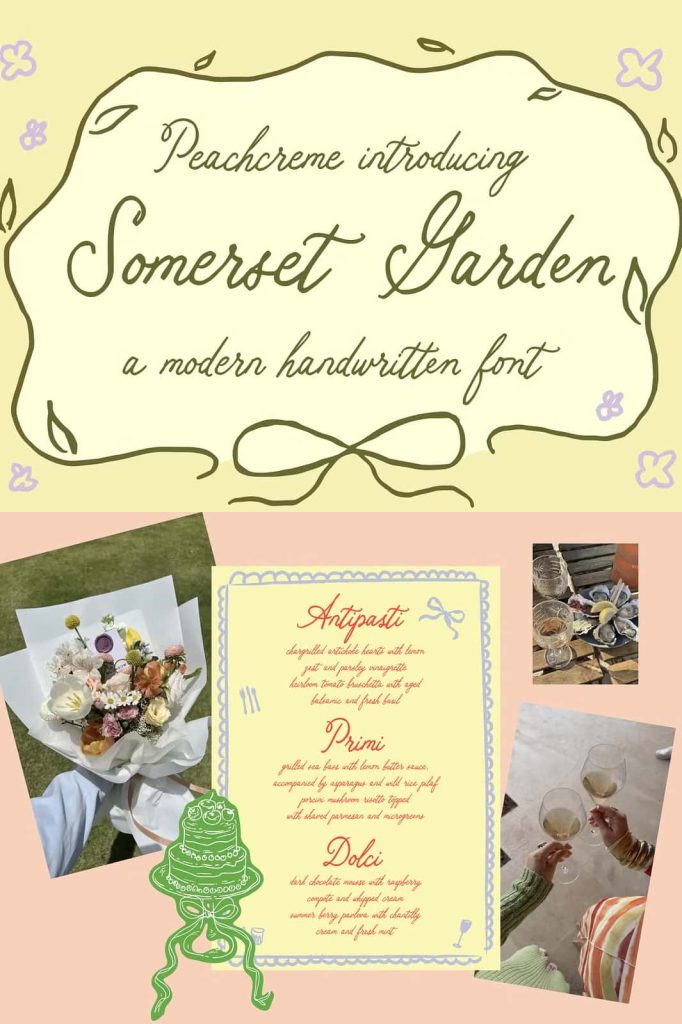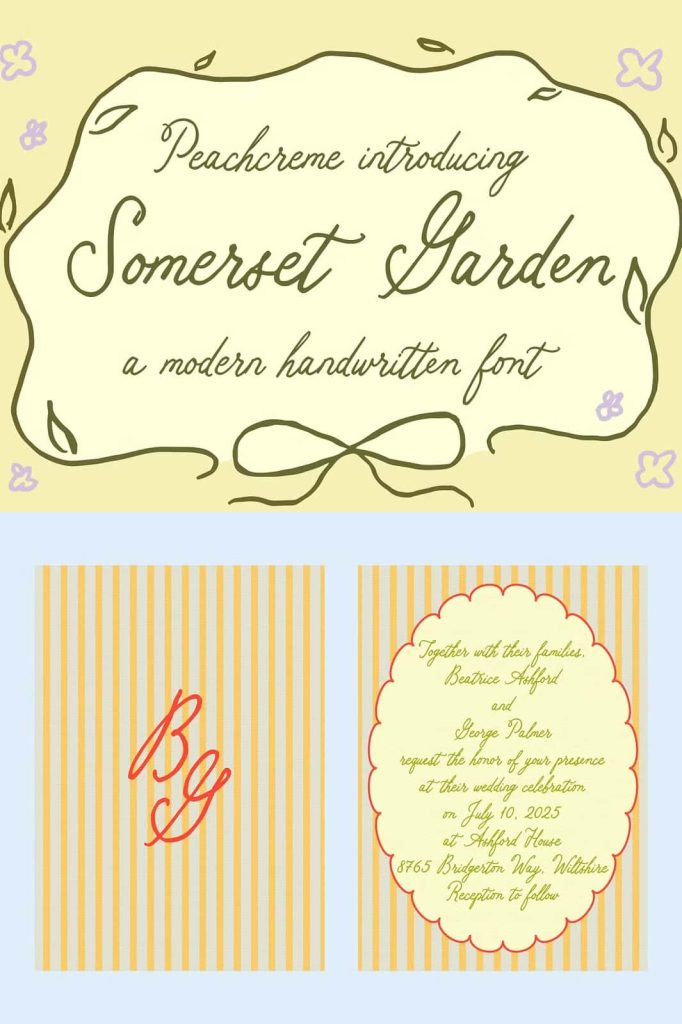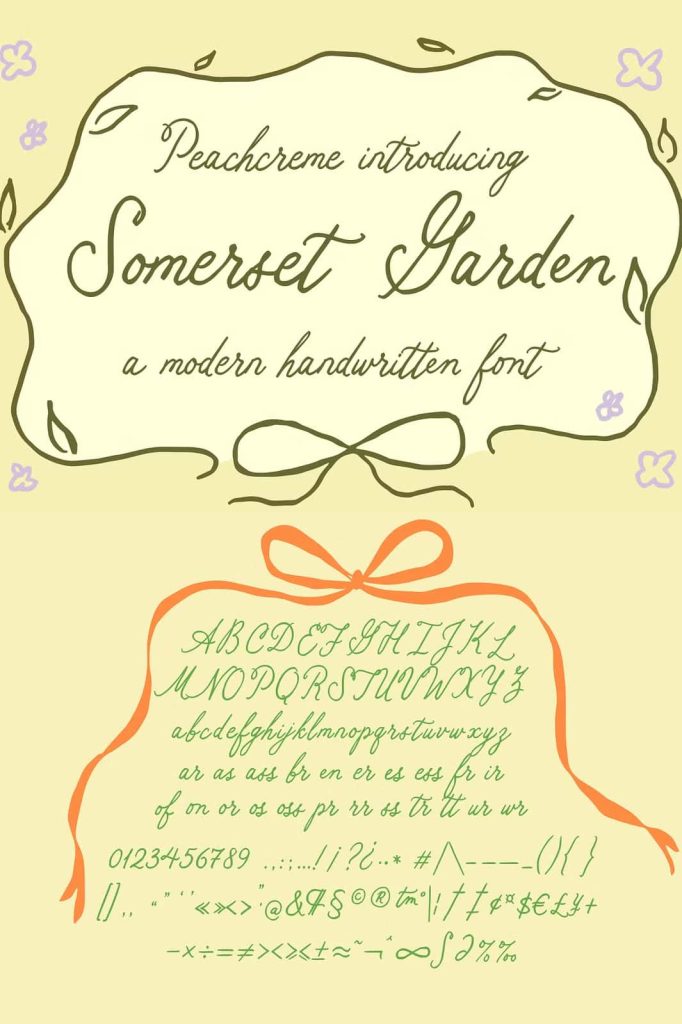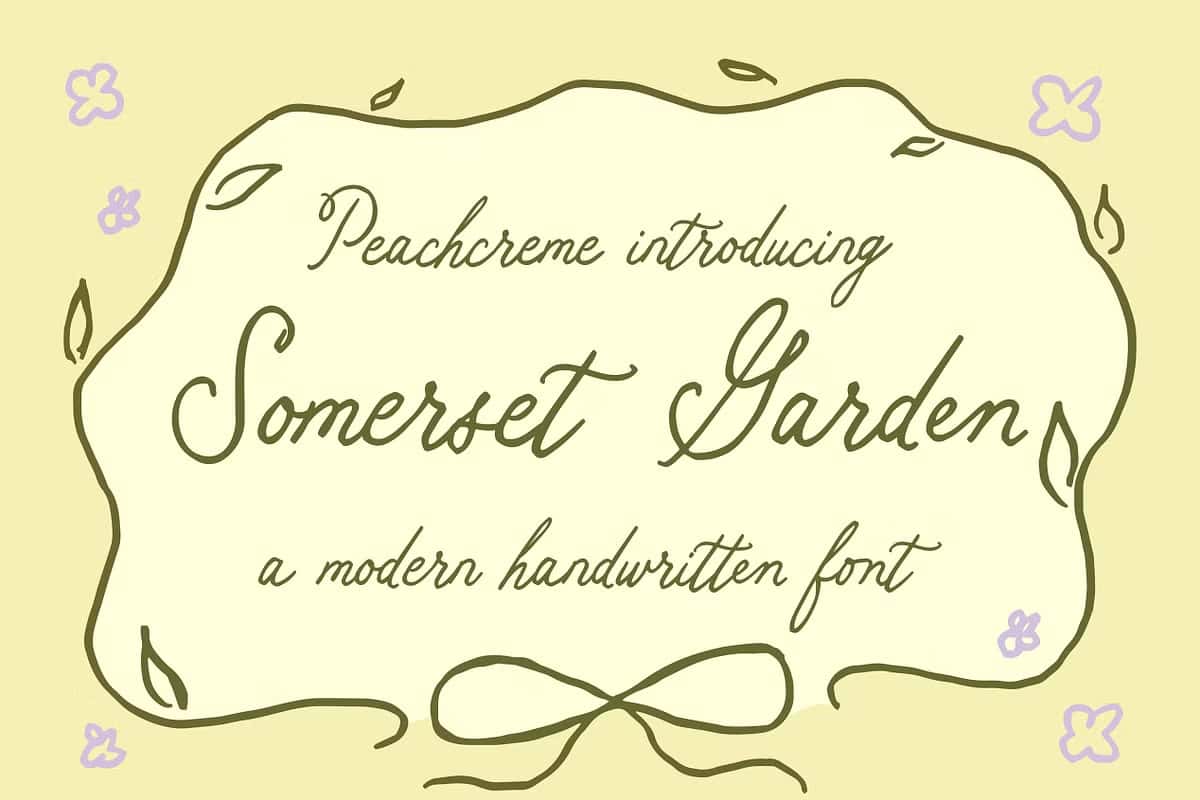
Somerset Garden Font
Somerset Garden Handwritten Font: Playful Charm with a Personal Touch
Somerset Garden is a delightfully quirky handwritten font that brings energy, warmth, and personality into your designs. Inspired by natural penmanship and expressive writing styles, this typeface captures the spontaneity of hand-drawn lettering while maintaining clarity and usability. Designers can use Somerset Garden to create work that feels personal, inviting, and full of character.
Expressive and Playful Letterforms
Somerset Garden stands out through its playful and expressive design. Each letter carries subtle variations that mimic real handwriting, giving your typography a natural and organic flow. Instead of rigid uniformity, the font embraces irregularity, allowing your designs to feel more human and approachable.
This expressive quality makes Somerset Garden ideal for projects that aim to communicate emotion and creativity. It transforms simple text into a lively visual element, helping your message connect with audiences in a more engaging way.
Perfect for Creative and Personal Projects
Somerset Garden adapts effortlessly to a wide range of creative applications. Its whimsical style makes it especially effective in projects that require a personal and artistic touch. Designers can rely on this font to bring warmth and individuality into their work.
You can use Somerset Garden for:
• Wedding invitations that feel intimate and handcrafted
• Greeting cards that express genuine emotion
• Personal branding that highlights creativity and uniqueness
• Social media graphics that stand out with charm
• DIY projects that benefit from a handwritten aesthetic
Its versatility ensures that it remains a valuable tool for both professional designers and hobbyists.
A Whimsical Style That Captures Attention
Somerset Garden brings a sense of fun and imagination into typography. Its quirky details and flowing strokes create a visual rhythm that keeps the viewer engaged. This makes it particularly effective for designs that need to capture attention quickly while maintaining a friendly tone.
The font’s whimsical nature allows designers to experiment freely, combining text with illustrations or decorative elements to create unique compositions. It encourages creativity and supports a wide range of artistic directions.
Natural Flow with Strong Readability
Despite its playful appearance, Somerset Garden maintains strong readability. The letterforms are carefully crafted to ensure that text remains clear and legible across different sizes and formats. This balance between creativity and function allows designers to use the font confidently in both short phrases and longer text.
The smooth transitions between characters create a cohesive look, helping your designs feel polished while still retaining their handwritten charm. This makes Somerset Garden suitable for both print and digital applications.
Designed to Add Personality and Warmth
Somerset Garden excels at adding personality to your designs. Its handwritten style conveys authenticity and warmth, making it ideal for projects that aim to build a connection with the audience. Whether you are designing for a brand or a personal project, this font helps communicate a friendly and approachable tone.
The organic nature of the typeface allows it to adapt to different moods, from playful and lighthearted to soft and elegant. This flexibility makes it a reliable choice for designers who want to create emotionally engaging visuals.
Enhance Your Creative Workflow
Somerset Garden supports a smooth and efficient design process. Its consistent style and natural flow make it easy to integrate into various layouts. Designers can quickly experiment with different compositions, knowing that the font will maintain its charm and readability.
This ease of use allows you to focus on creativity rather than technical adjustments. Somerset Garden works as a dependable tool that enhances your workflow while delivering visually appealing results.
Bring Your Ideas to Life with Somerset Garden
Somerset Garden empowers designers to create typography that feels alive and expressive. Its combination of playful design, natural flow, and strong readability makes it a versatile choice for a wide range of projects. By incorporating this font into your work, you can transform ordinary text into a memorable visual experience.